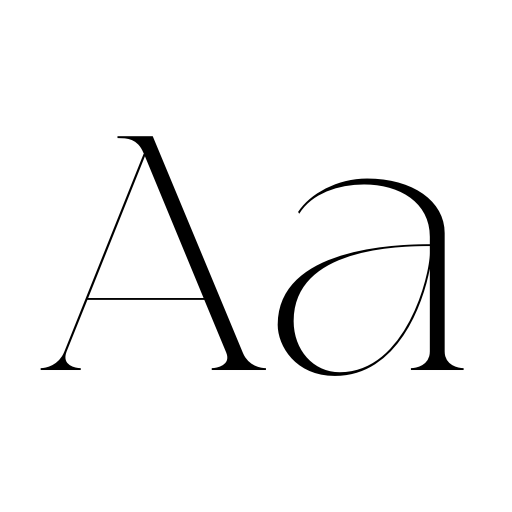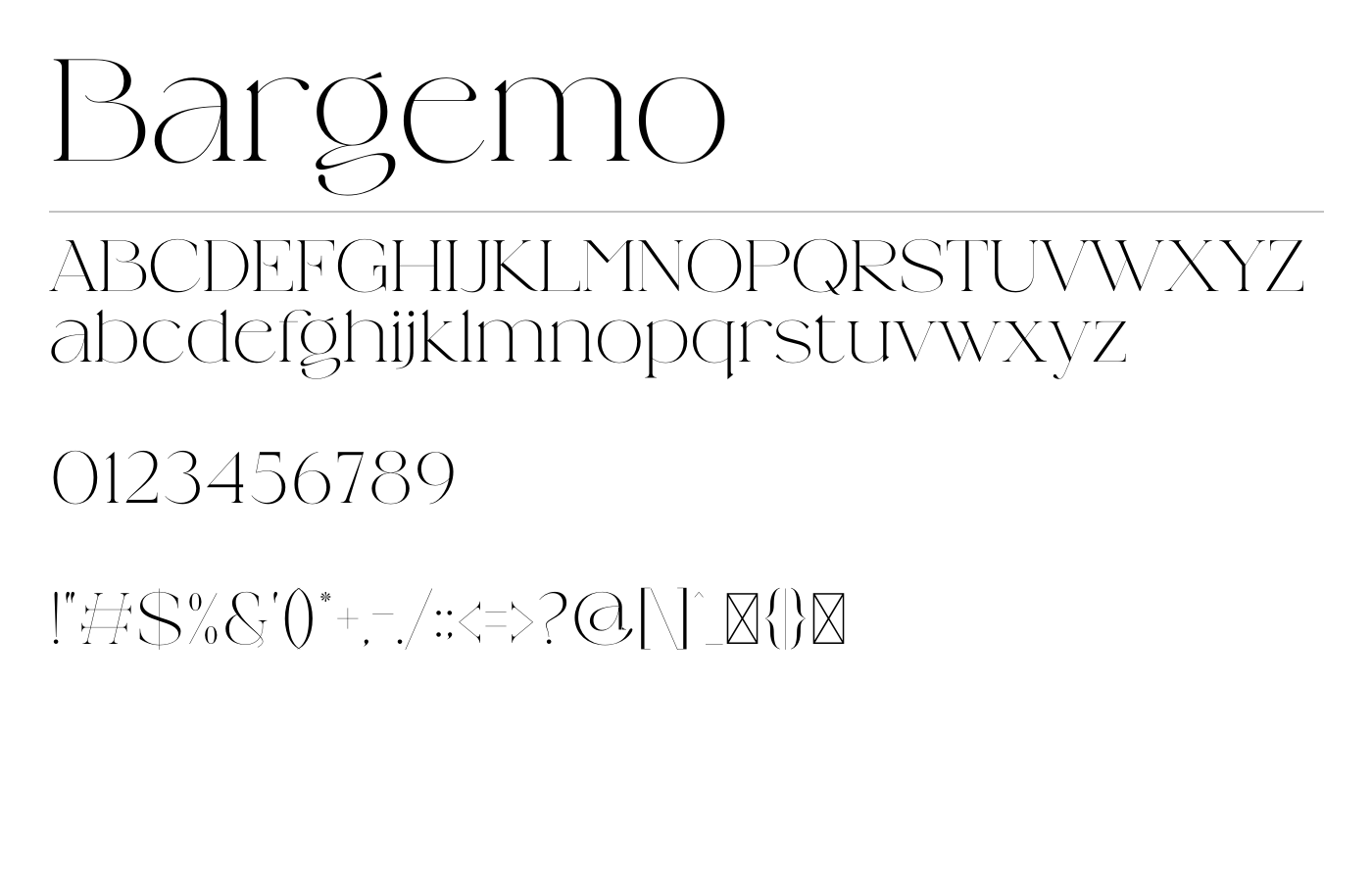
Bargemo is an elegant serif font that combines delicate, high-contrast strokes with a refined, modern touch. Its slender letterforms and unique details, like the distinctive tail on the "g" and subtle curves on the serifs, make it perfect for upscale branding, editorial headlines, and sophisticated packaging. This font brings a sense of luxury and grace, ideal for projects that aim to communicate style and exclusivity.
Bargemo Font